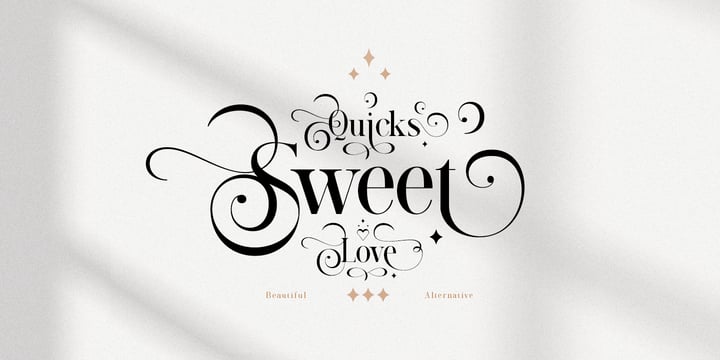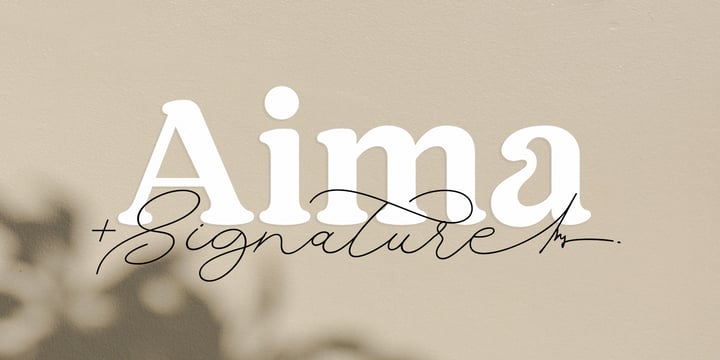
Areatype The big font bundle
This bundle includes a variety of best-selling unique font and modern all with modern, clean and stylish looks. Perfect for greeting cards, branding, business cards, quotes, posters, stickers, blogs, logos, weddings, signage, packaging, and much more.
And equipped with unique alternates & ligatures.